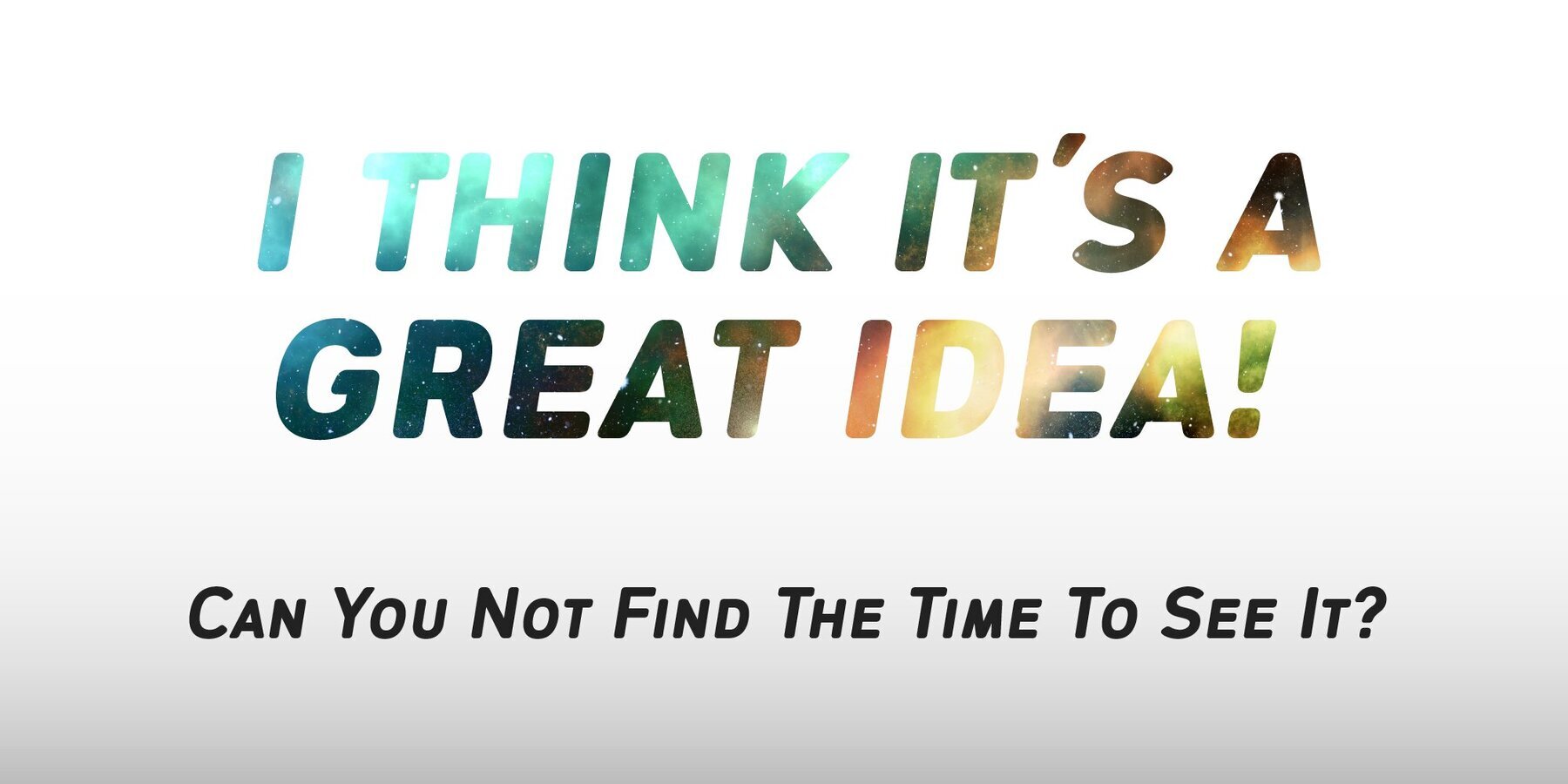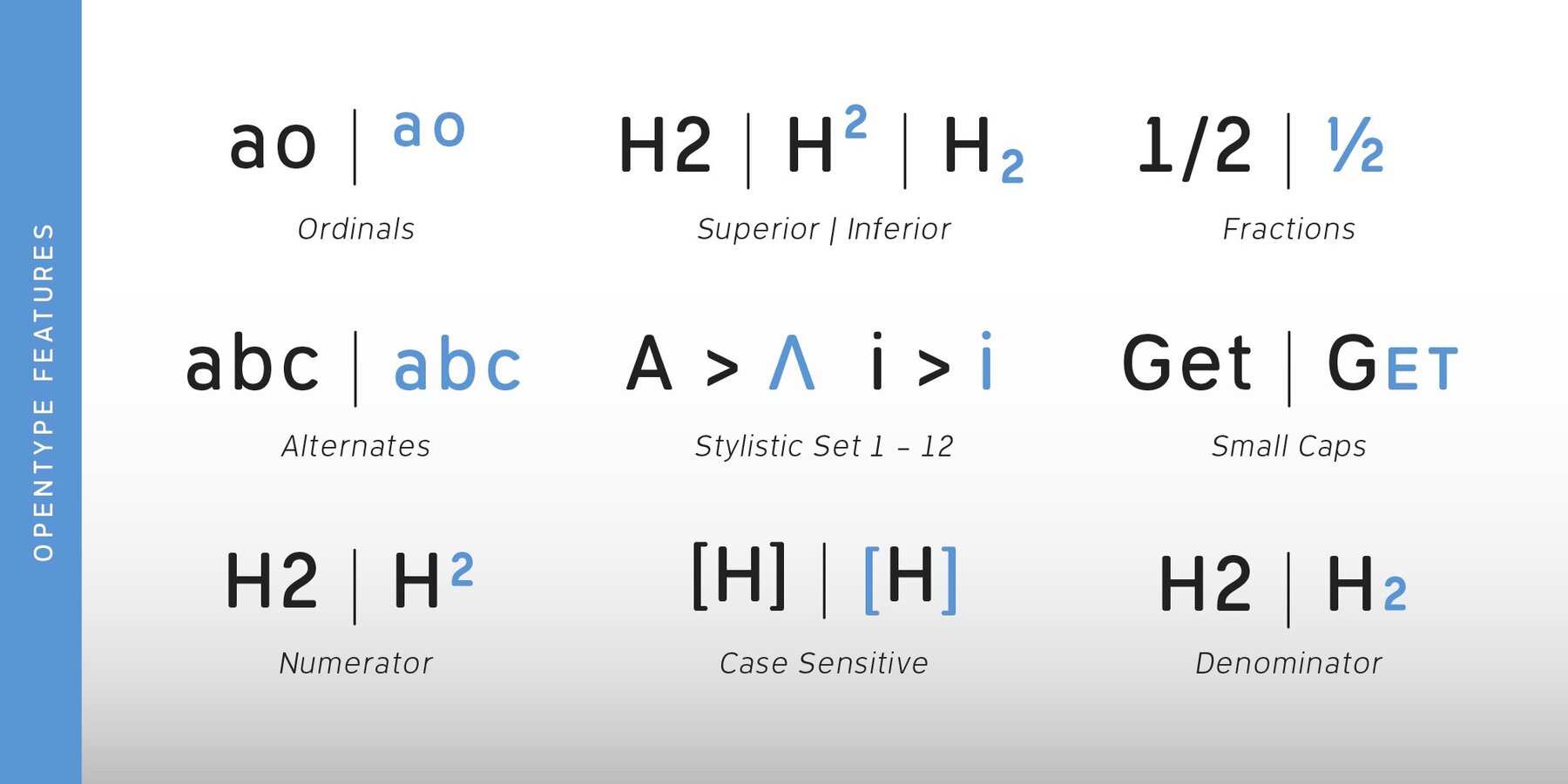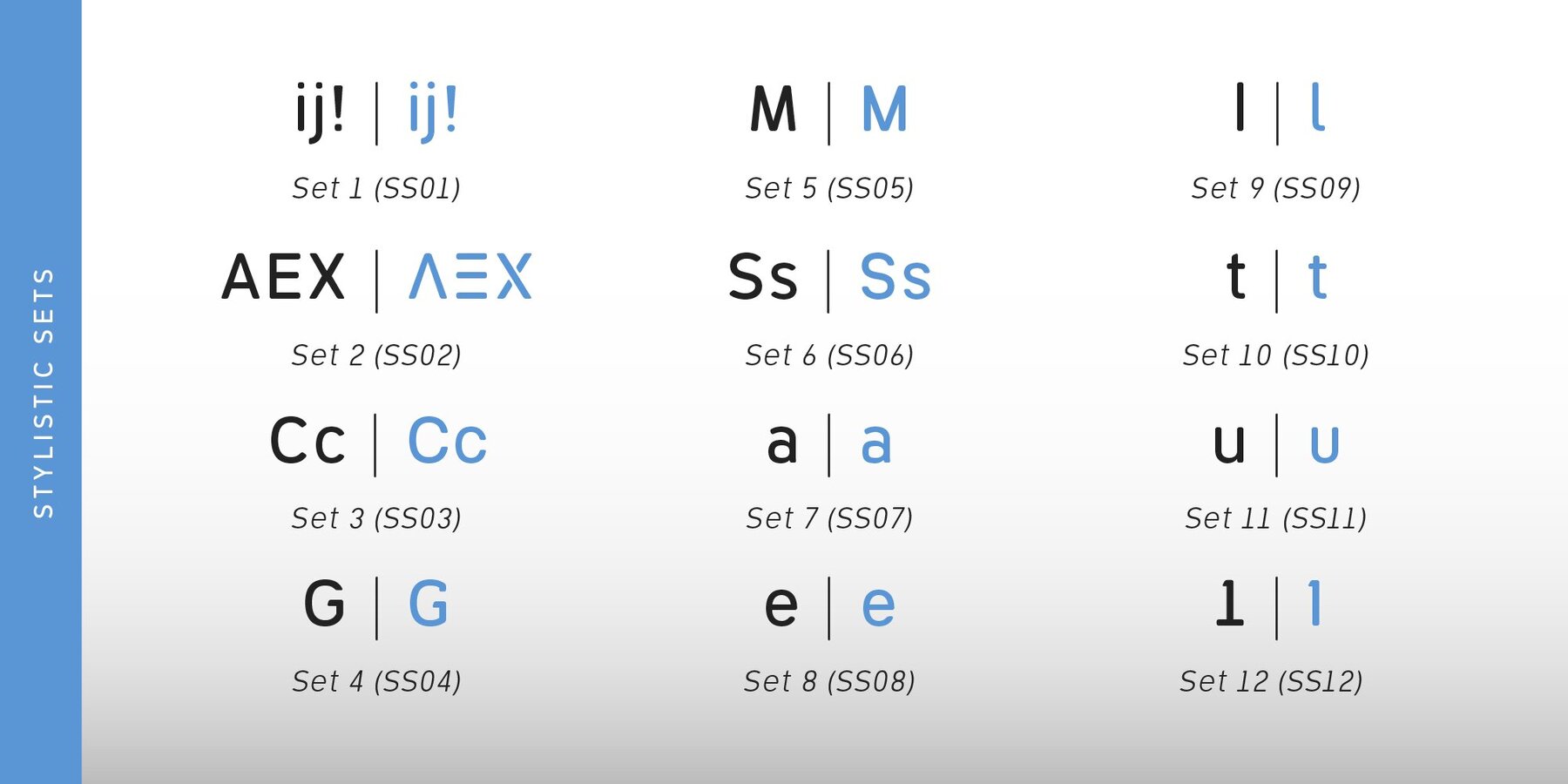
Geometris Round Font
Geometris Round Semi-Condensed was designed by Nikolay Savchuk. Geometris Round Semi-Condensed is a modern versatile sans-serif typeface. What differentiates Geometris Round Semi-Condensed from the other fonts is an exceptionally distinctive design. It is brilliantly suited for graphic design and display use and perfect for logotypes, t-shirts, packaging, brand identity, books, magazines, newspapers, posters, billboards, and advertising.
• OT Features: aalt c2sc case dnom frac kern liga numr ordn salt sinf smcp ss01 ss02 ss03 ss04 ss05 ss06 ss07 ss08 ss09 ss10 ss11 ss12 sups
Savchuk Mykola began his career as a graphic designer. Over time, he had a desire to create a font that would reflect his view of typography. ‘They say that all ingenious things are simple, although unique. In my future projects, I want to reflect simplicity on the one hand and uniqueness on the other, providi...